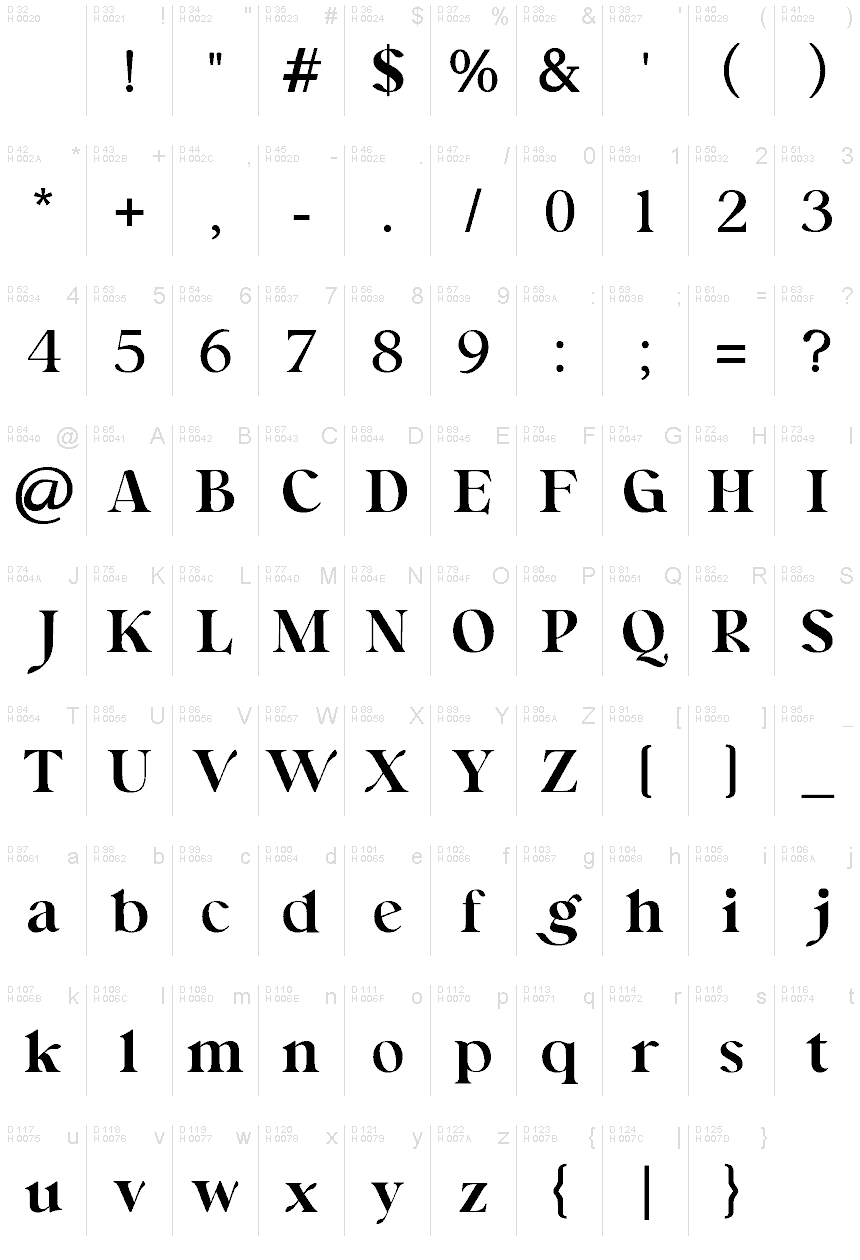
Voltaire Frangela
Voltaire Frangela font by UI Creative is an elegant, high-contrast typeface with a sophisticated, refined appearance. It carries the influence of traditional serifs with a classic aesthetic and subtle historical references. The combination of these characteristics gives this font an overall luxurious and balanced look across texts.